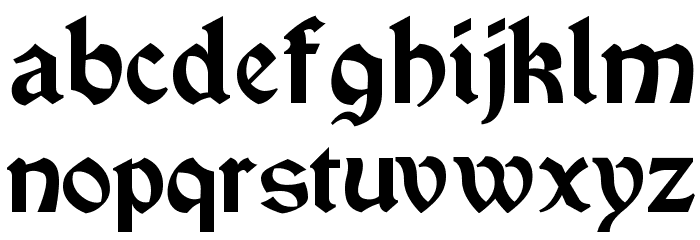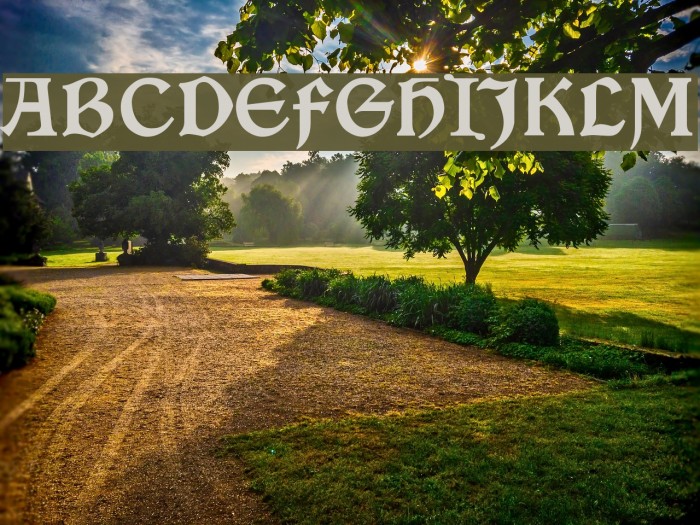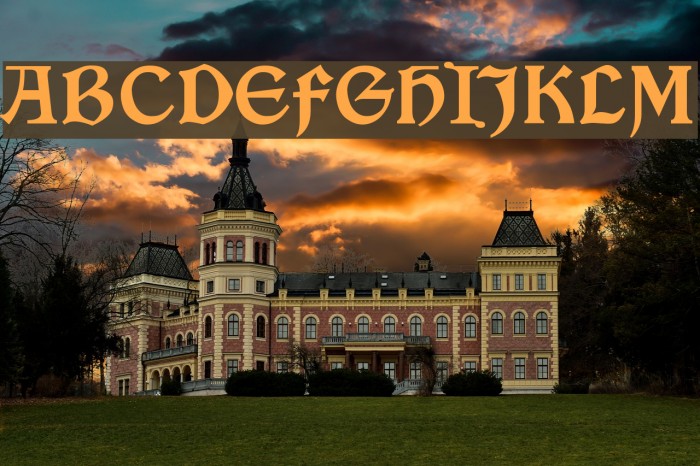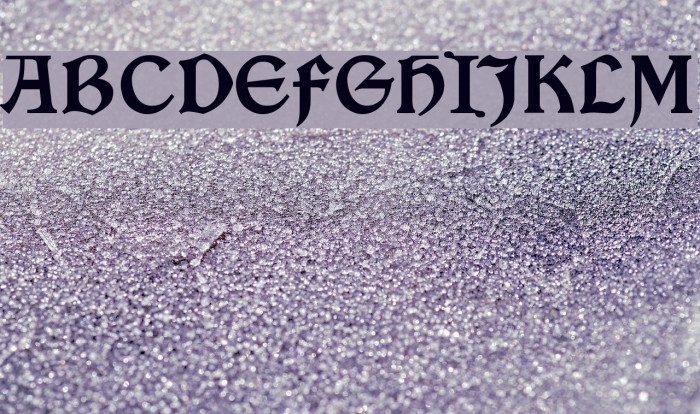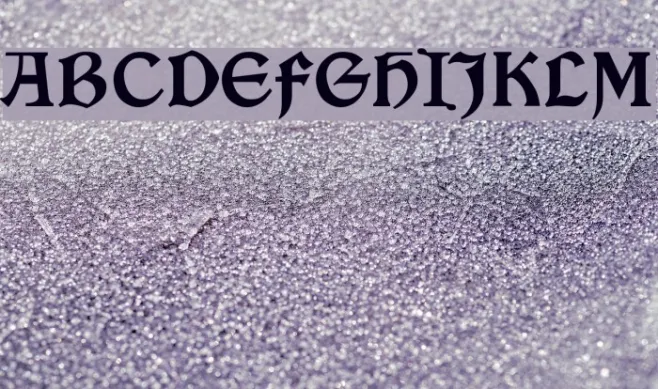
Vinque Font
This font features a bold and dramatic style with sharp, angular lines and a distinct medieval influence. The uppercase letters are characterized by their pointed serifs and strong vertical strokes, giving them a commanding presence. The lowercase letters maintain the same angular aesthetic, with unique flourishes that add to the font's ornate appearance. The numerals are equally bold, with a consistent weight that matches the alphabetic characters. Special characters are designed with the same attention to detail, ensuring a cohesive look across all glyphs. This font is perfect for projects that require a touch of historical elegance and boldness.
A bold, medieval-inspired font with sharp, angular lines and ornate details.
- Font: Vinque
- Proposed Projects: Ideal for historical themed designs, book covers, posters, and branding that requires a dramatic and bold aesthetic.
- Category: Blackletter
- Overall Style: Vintage